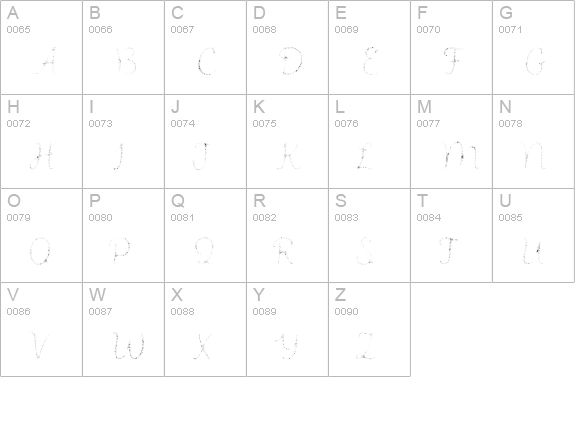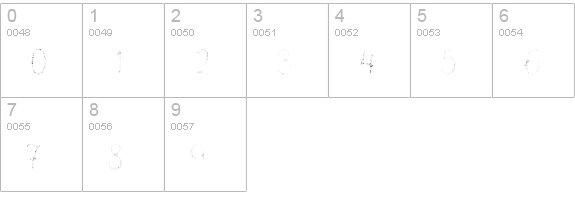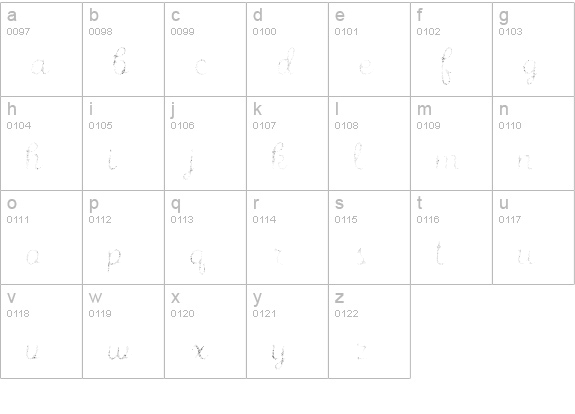
Intro Script R H2 Font Details
Introducing Intro Script R H2 font, a captivating and elegant typeface that exudes sophistication and style. This beautifully designed font features intricate details and flowing curves, making it perfect for adding a touch of luxury to your projects. Whether you're working on invitations, branding materials, or editorial designs, Intro Script R H2 font will elevate your work to the next level. What's even better is that Intro Script R H2 font is completely free to download at FontsMarket.com. So you can enhance your designs with this stunning font without any cost. Don't miss out on the opportunity to elevate your projects with the timeless beauty of Intro Script R H2 font. Download it now and let your creativity soar.